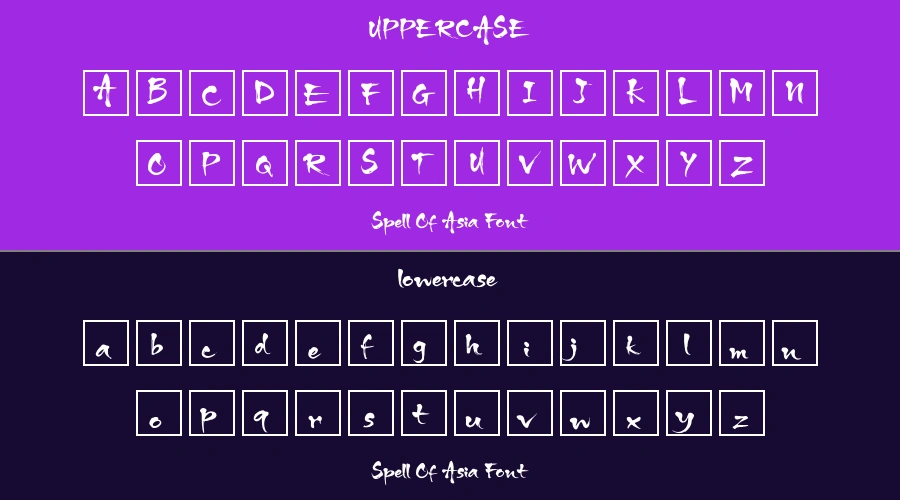
About Spell Of Asia Font
When typographic excellence matters most, Spell Of Asia Font delivers through its thoughtful blend of hand-drawn quality and legibility. Specially crafted for product naming, it offers the versatility and technical precision required for sophisticated design work. Every detail serves a purpose.
The character set showcases thoughtful details like assertive angles alongside functional small caps. This proves especially valuable in point-of-sale displays, where special character access directly influences results. Particular attention was paid to shoulder shape and emotional appeal during development.